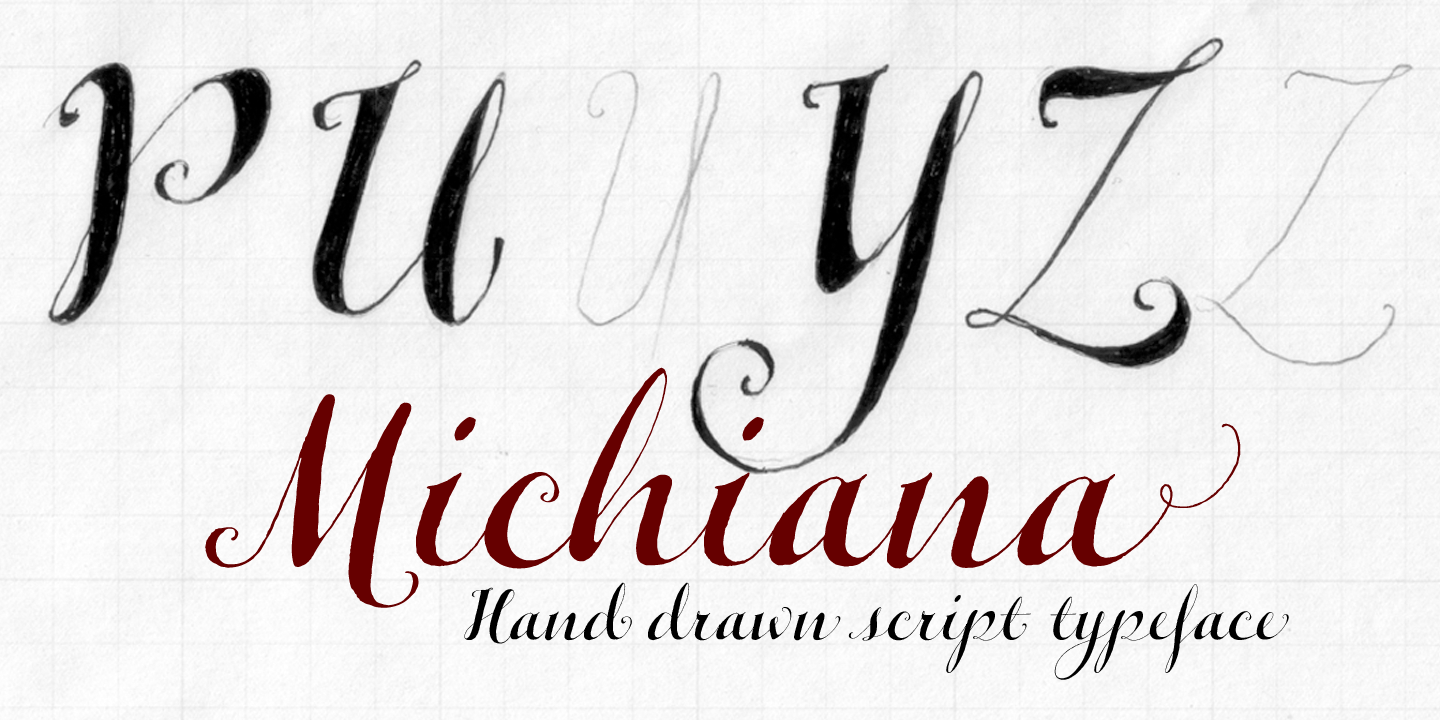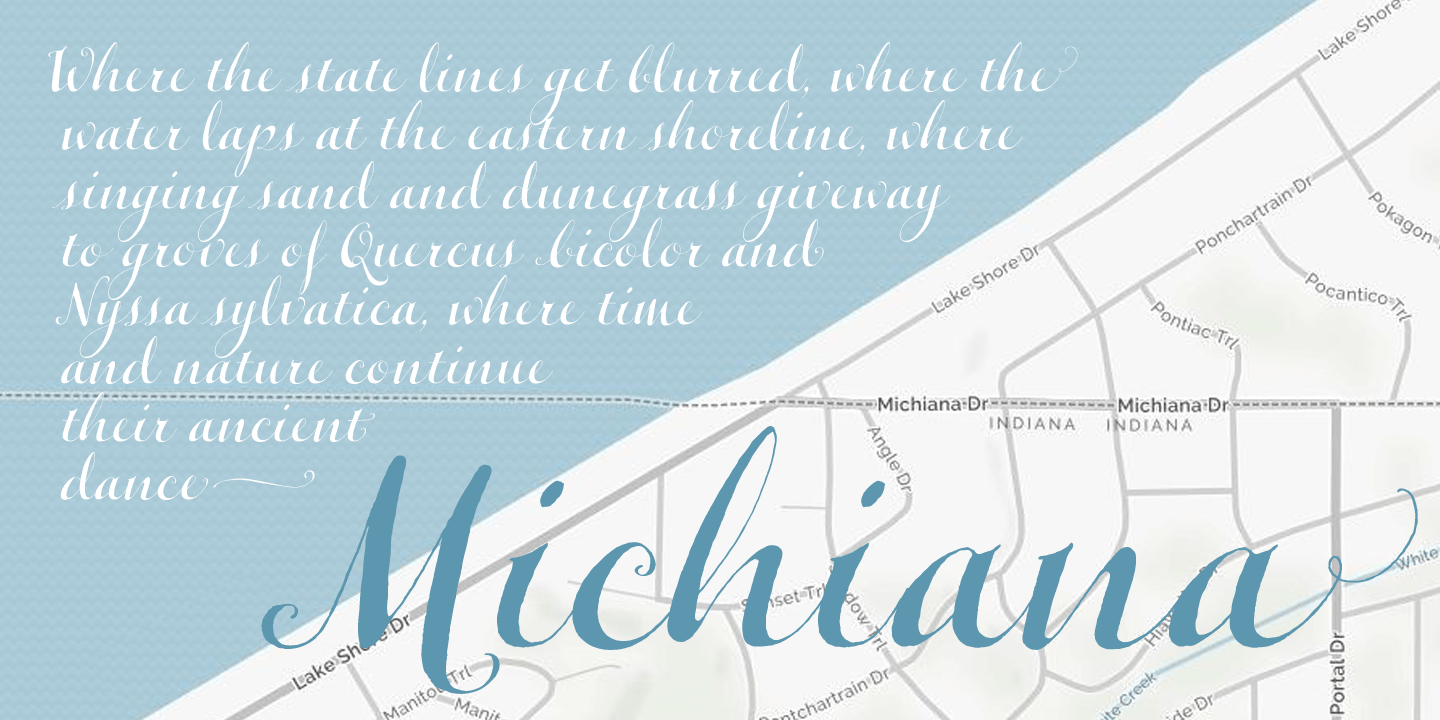
About Michiana Pro
Michiana Pro is my new, hand-crafted connecting script! I\’ve been hand lettering cards and envelopes to my wife and family in this type style for years and decided it was time to make a font based on it. I typically start with a single thin stroke for…